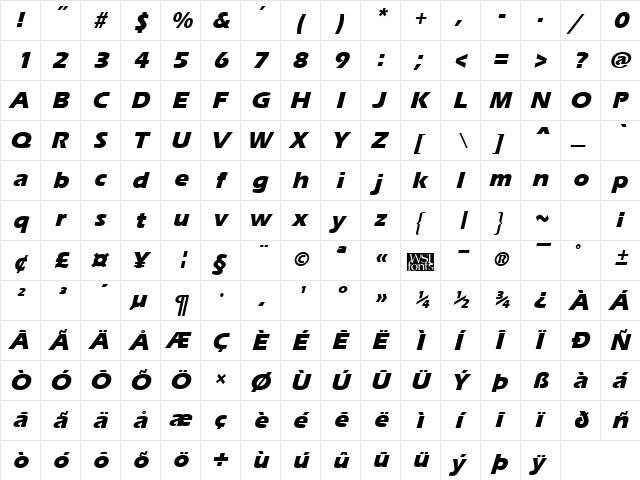
ErgoeMildExtrabold Italic
Design Context for ErgoeMildExtrabold Typeface
ErgoeMildExtrabold is a composed and adaptable typeface that performs quietly and consistently across a wide range of design contexts. Its italic angle brings a sense of urgency and motion to the letterforms. Its bold stroke weight gives it real presence on the page.
Pro Tip: Try ErgoeMildExtrabold for annotation and caption copy alongside an upright companion — the contrast in angle creates a dynamic but ordered typographic system.